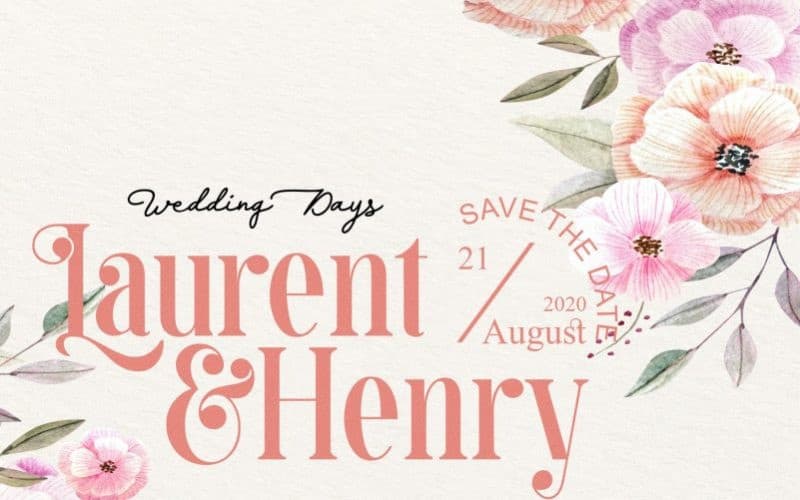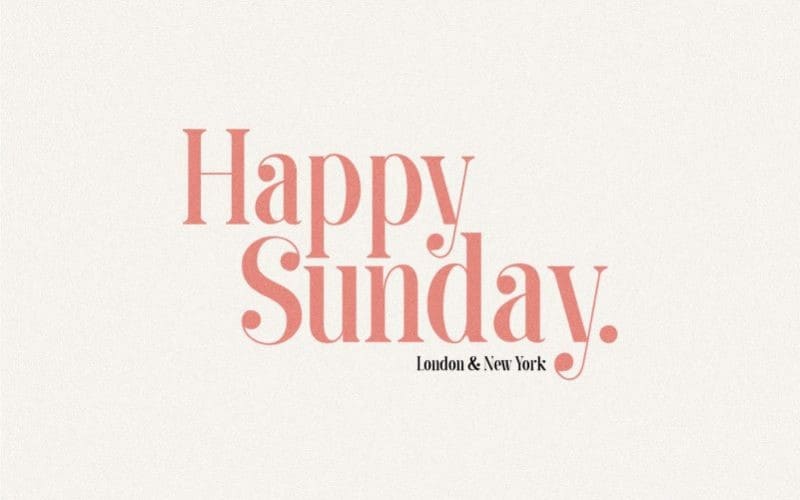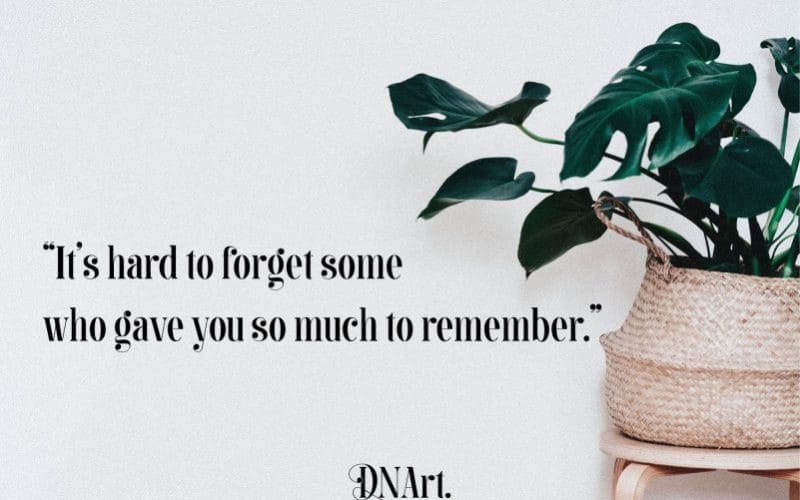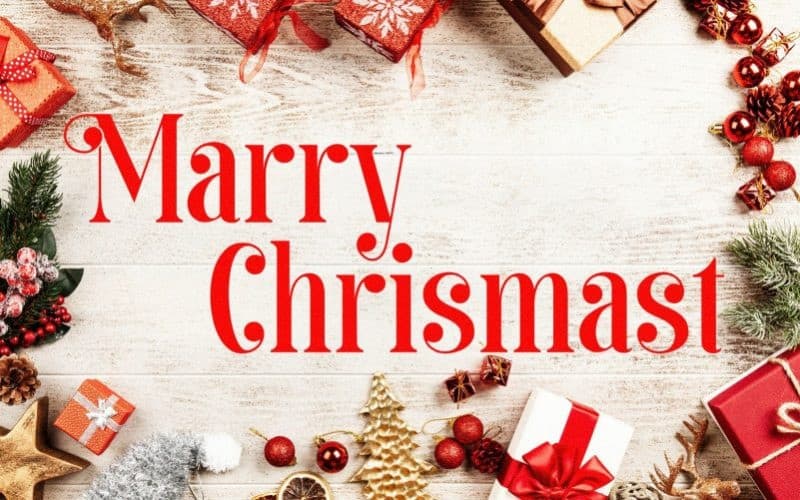
Balinesse Serif Font is a bold serif with high contrast, making it a versatile and elegant typeface. With a touch of vintage vibes, it will add a sleek and bold look for headlines, invitations, advertising and more. It’s designed and shared by DNArtDesign. This font is an elegant ligature serif typeface. A contrast display typeface with extra ligature and alternate glyph. Multilingual support, with uppercase, lowercase, numbers and punctuation. Let’s ignite your next project with balinesse!